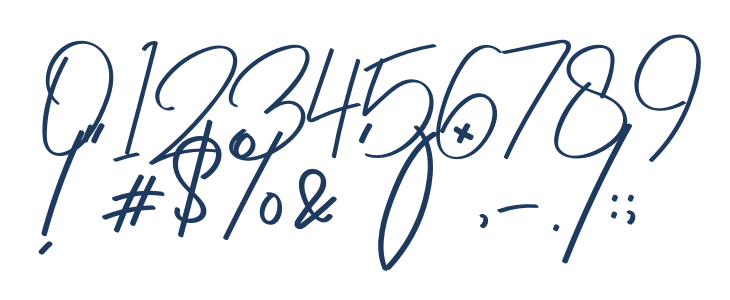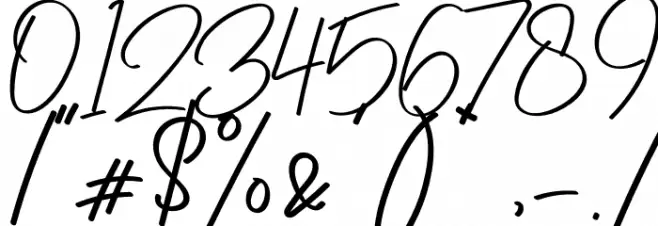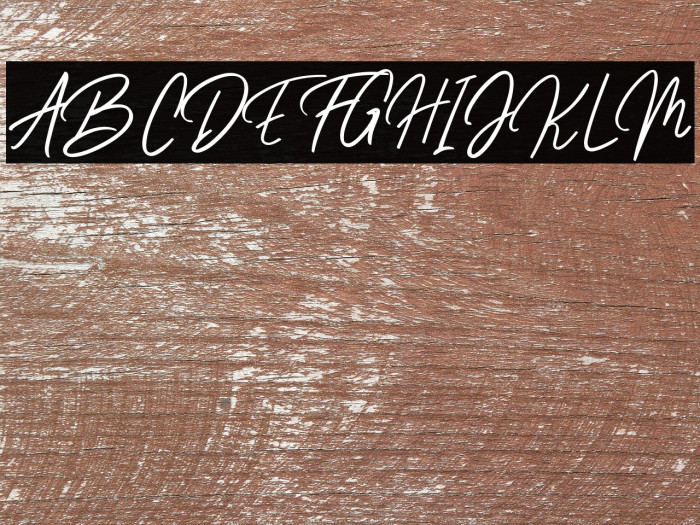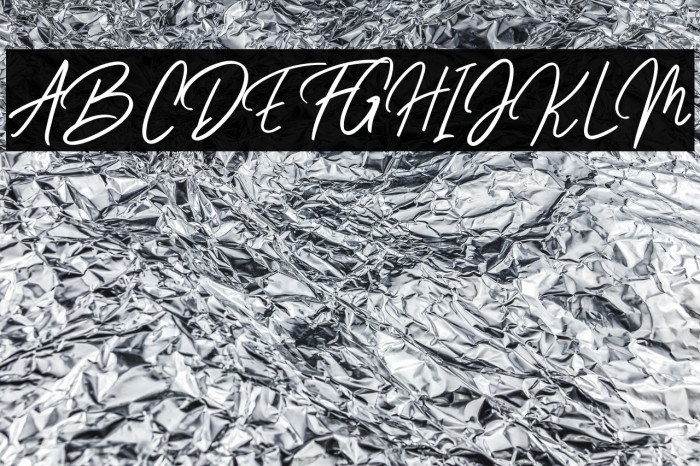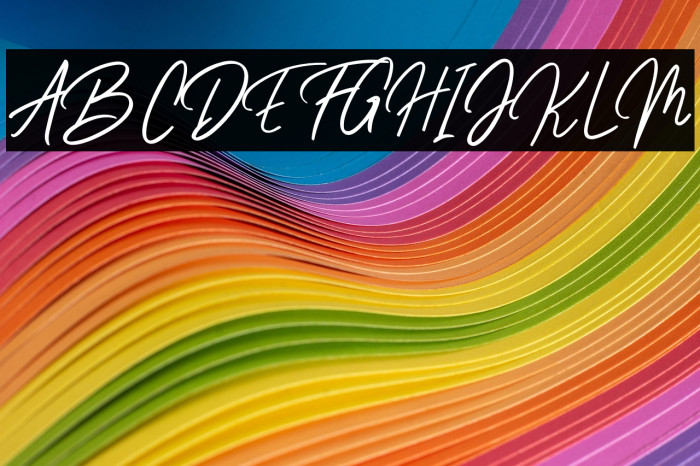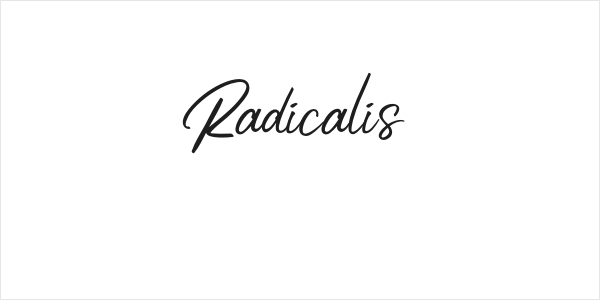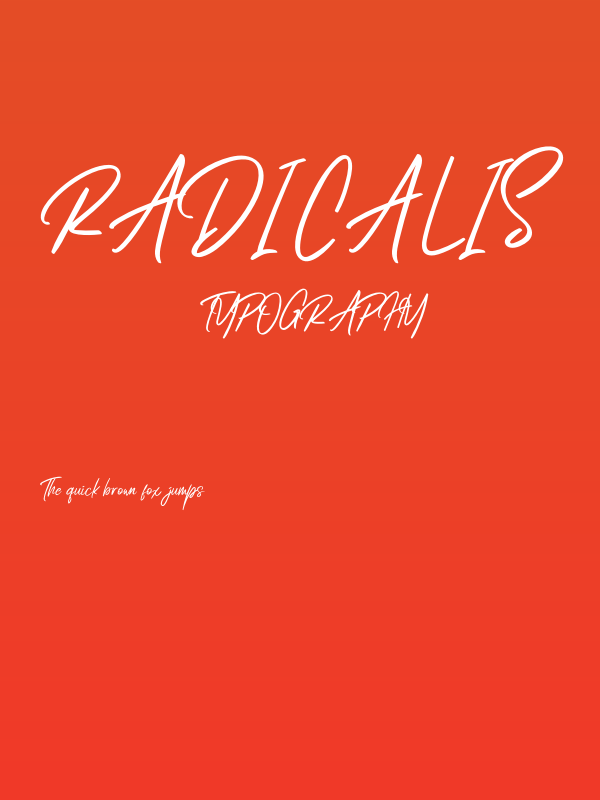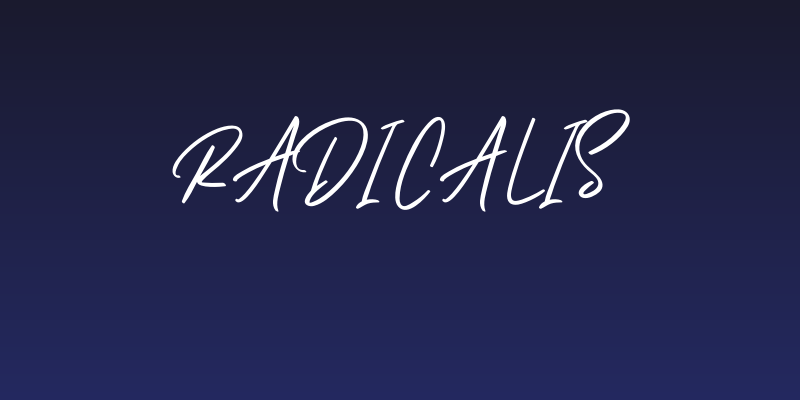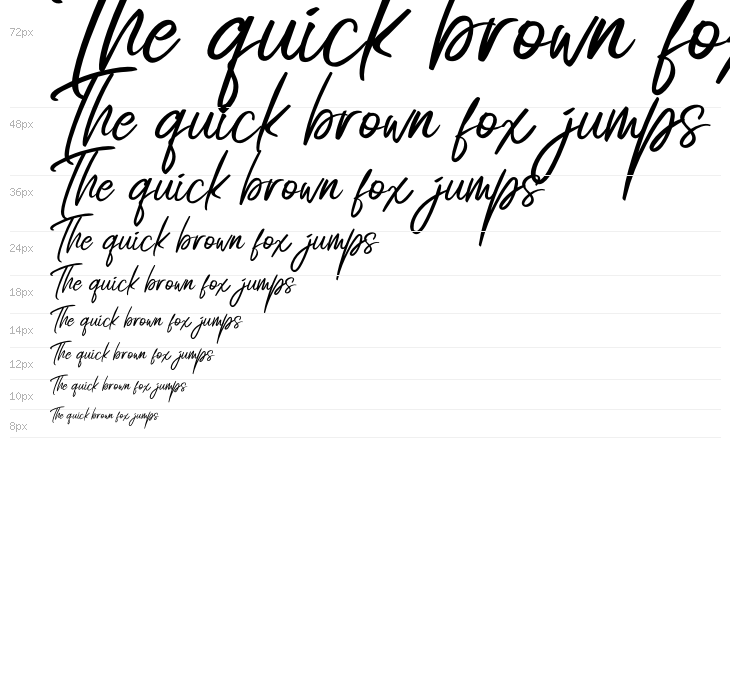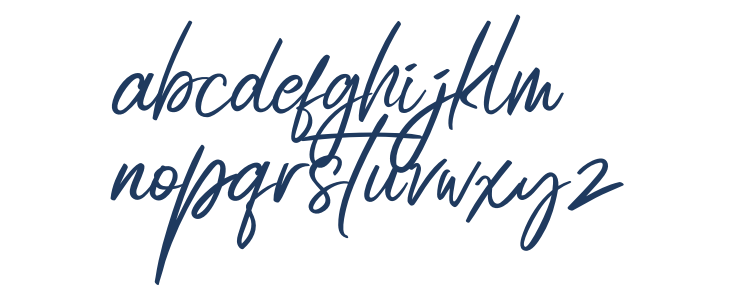
Radicalis Font
Radicalis Description
This font exudes a dynamic and energetic vibe with its fluid, cursive style. The letters are interconnected, creating a seamless flow that mimics natural handwriting. The strokes are smooth and slightly varied in thickness, adding a touch of elegance and sophistication. The uppercase letters stand tall with a slight slant, while the lowercase letters maintain a consistent baseline, enhancing readability. Numbers and special characters are crafted with the same attention to detail, ensuring a cohesive look across all text elements. This font is perfect for projects that require a personal, artistic touch.
| Proposed Projects | Ideal for wedding invitations, personal branding, artistic posters, and creative social media graphics. |